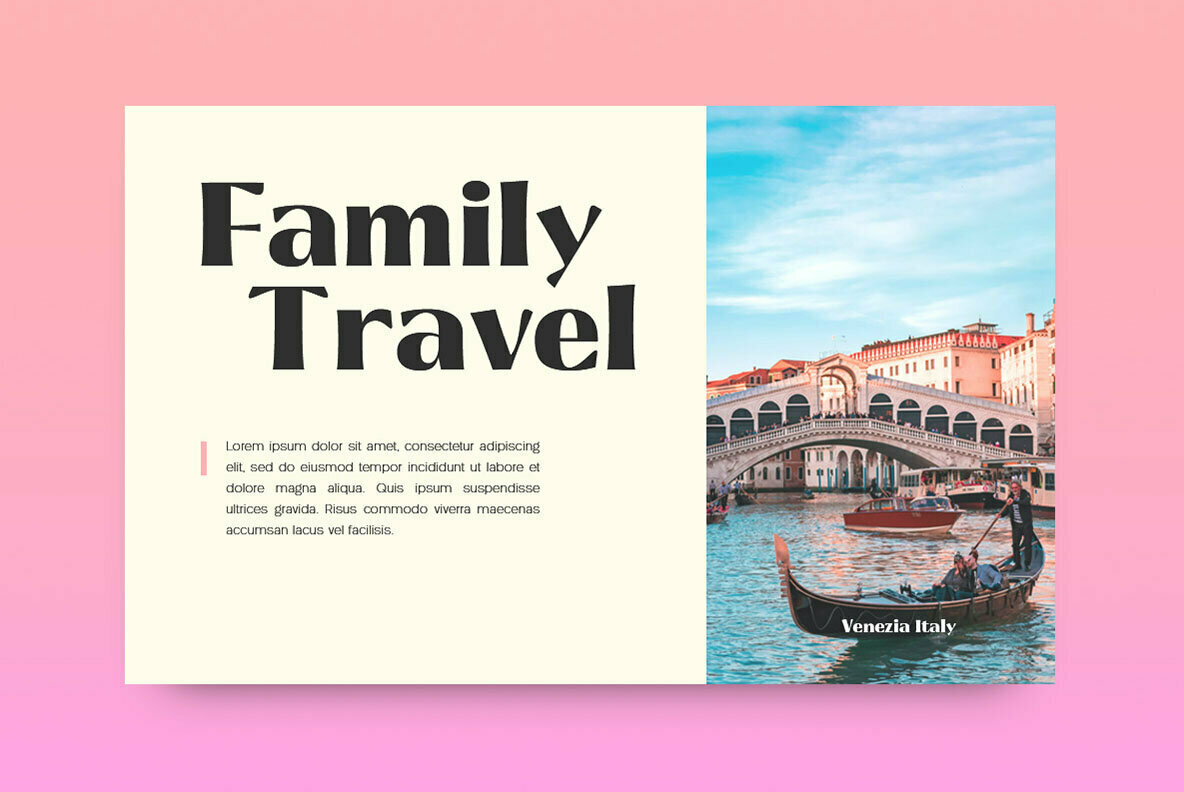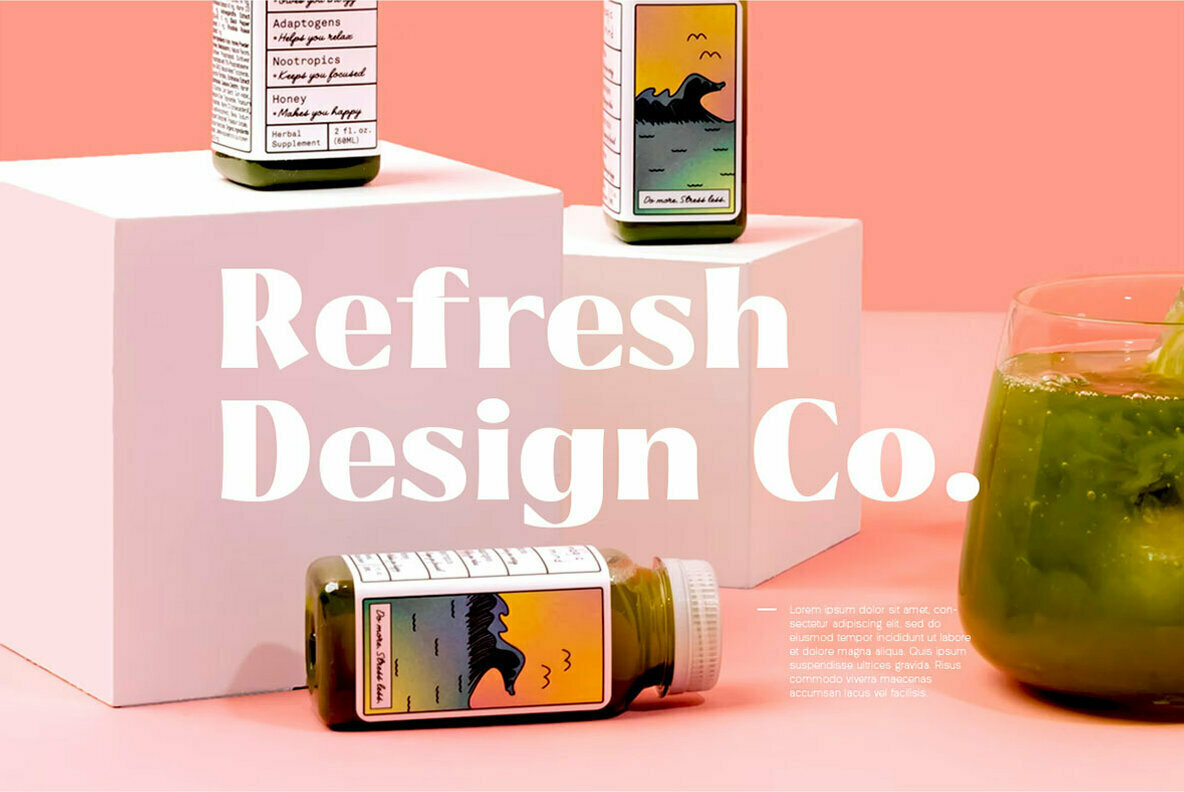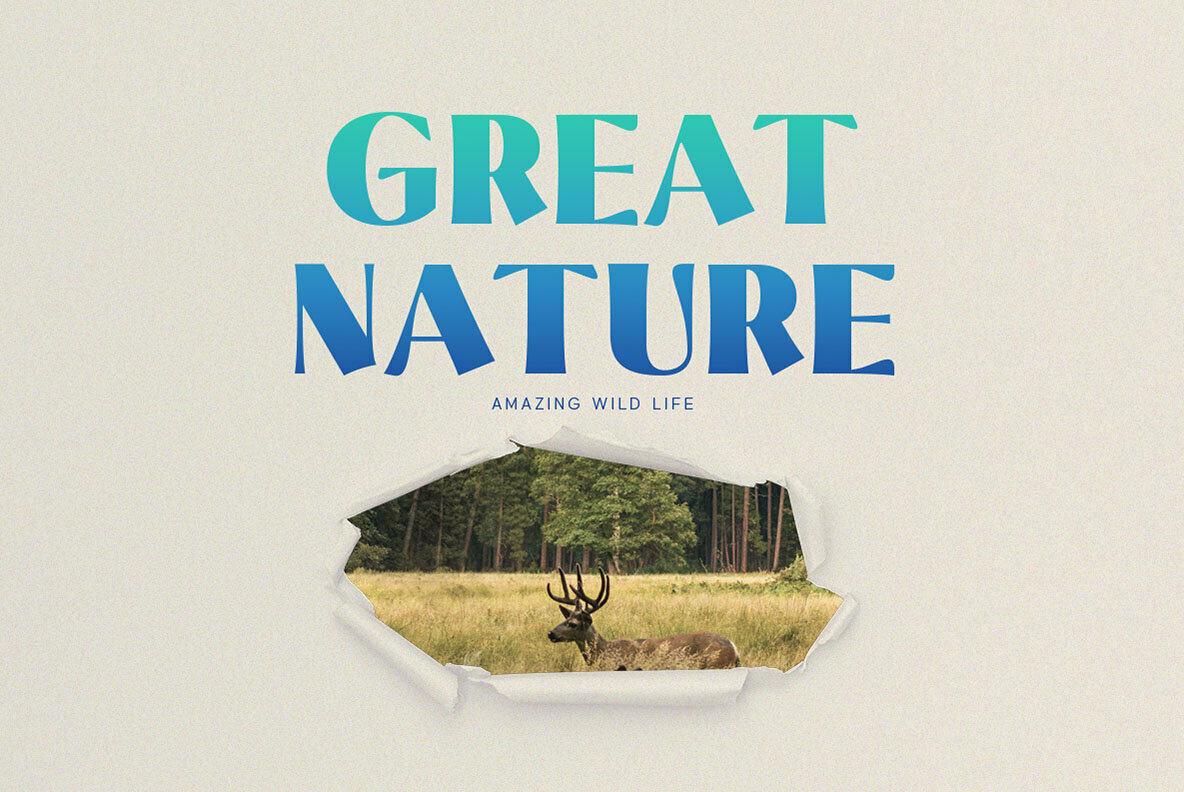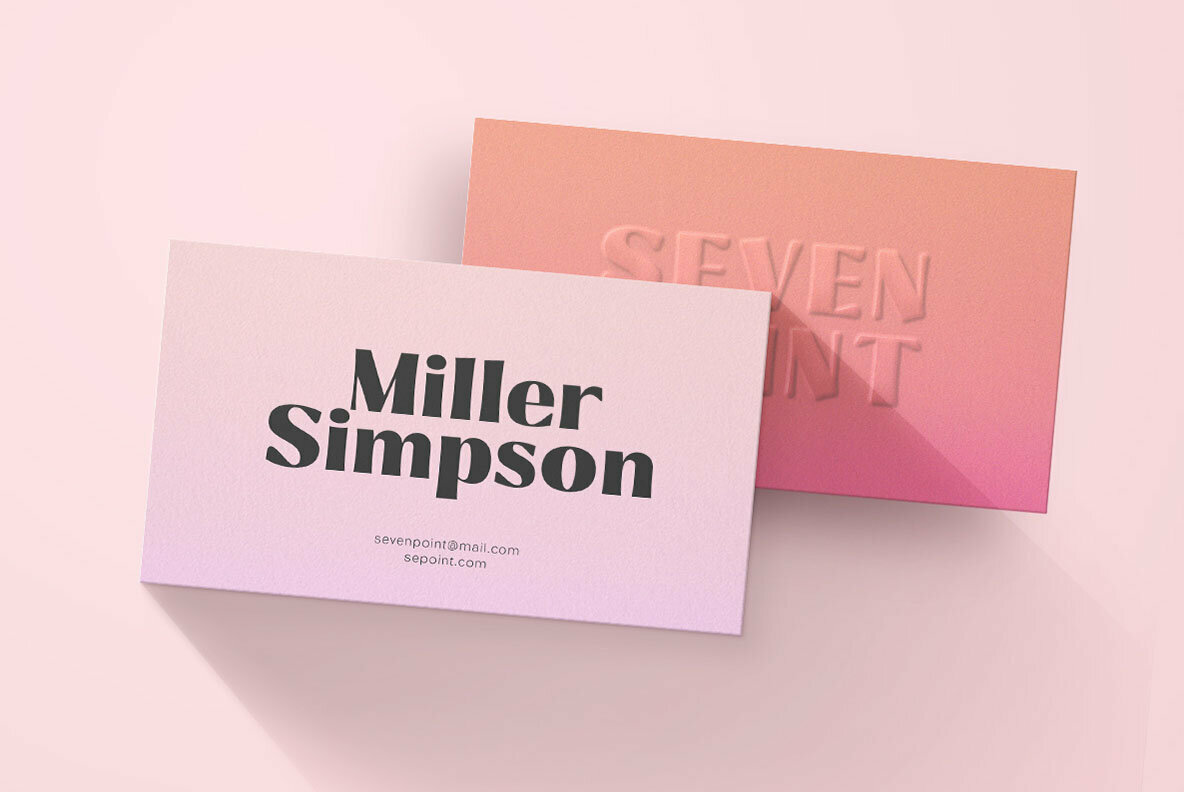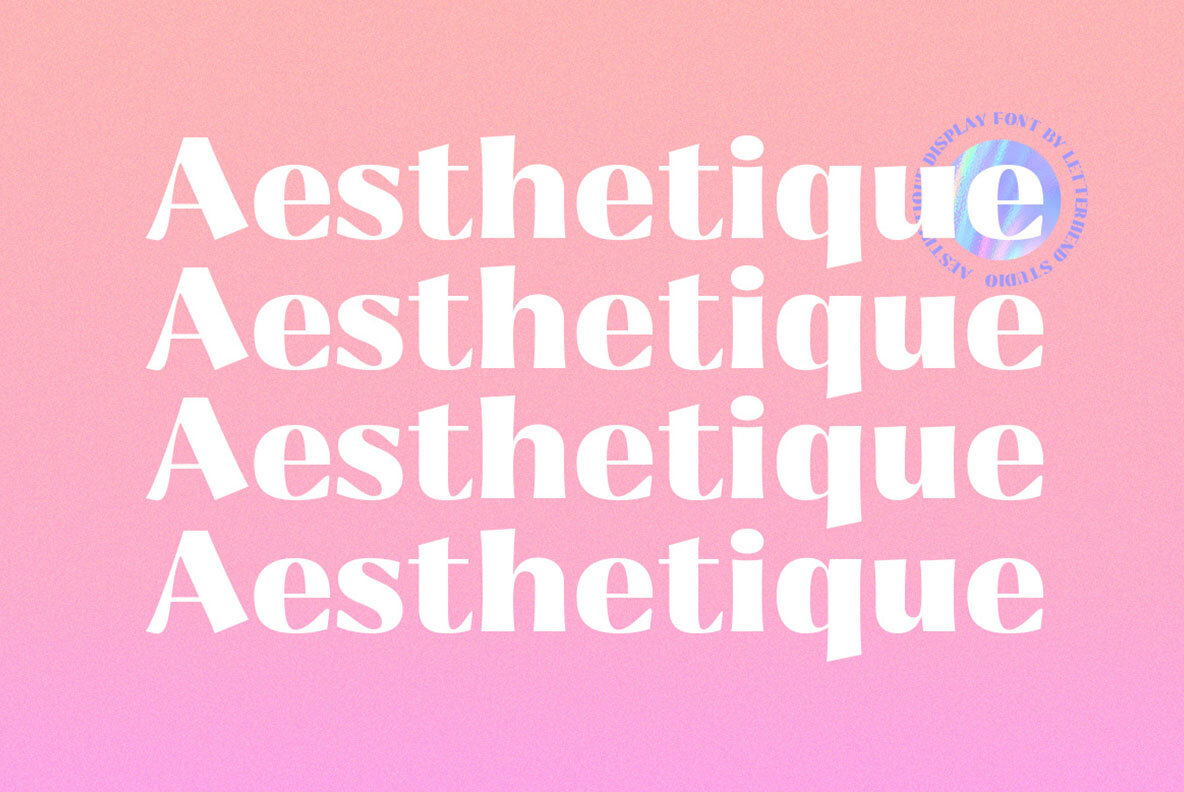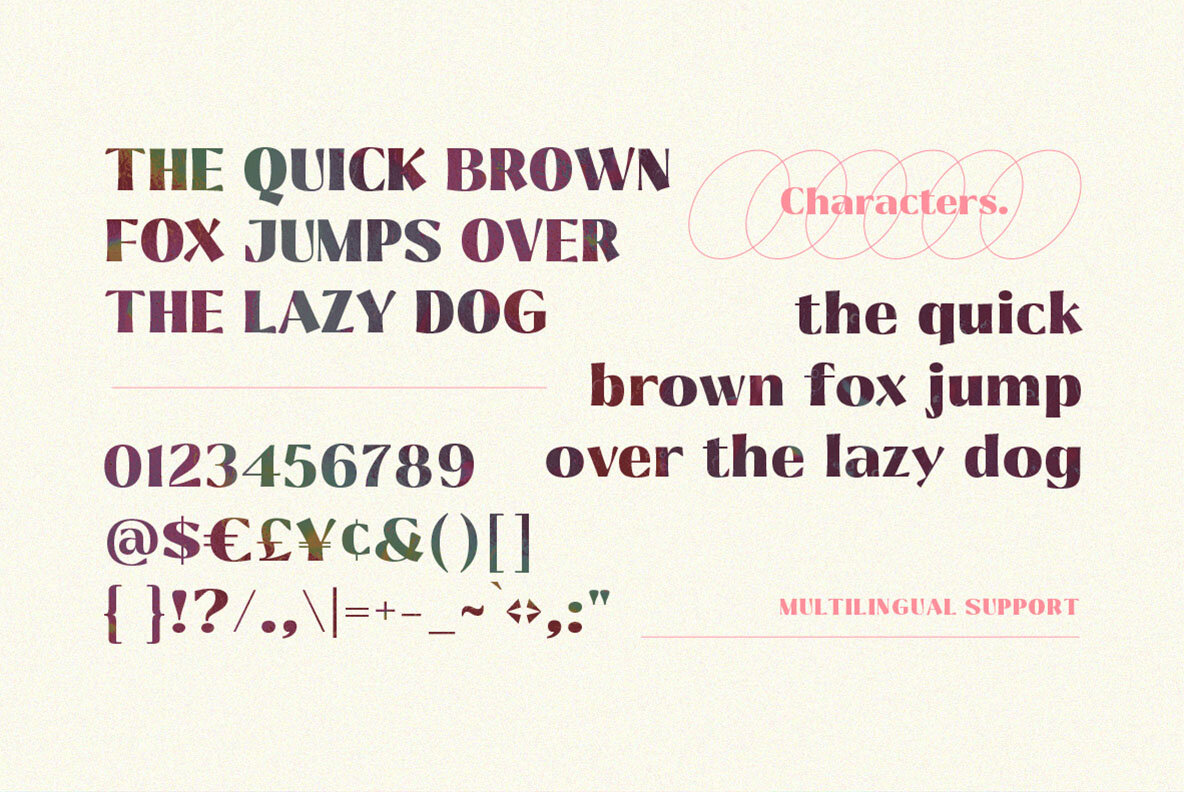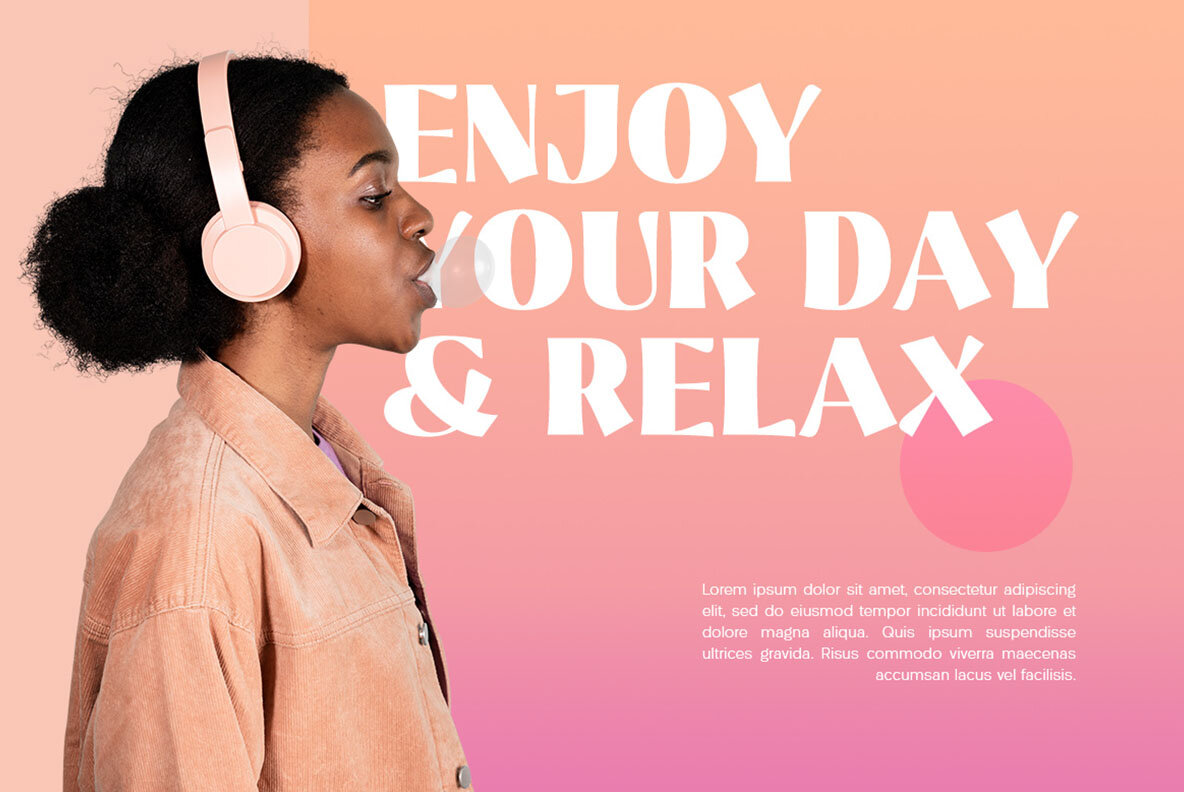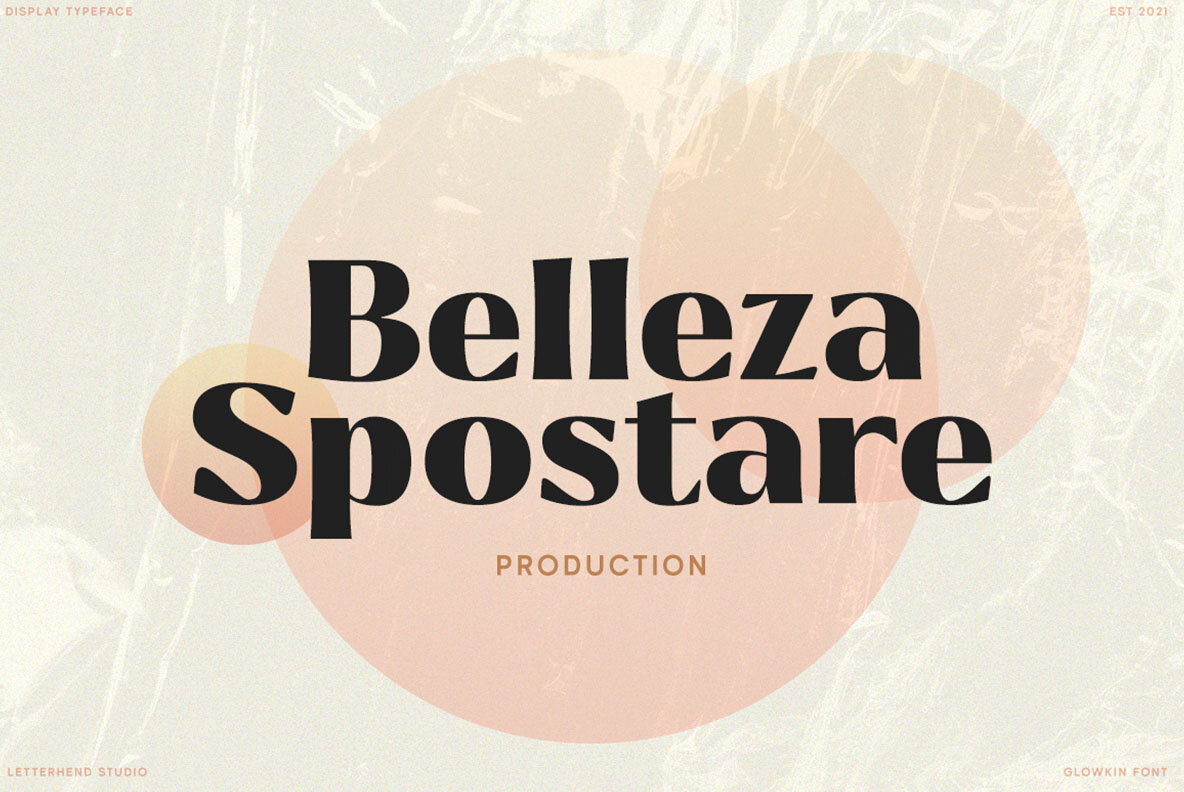
Glowkin Font
Glowkin Regular
Glowkin is a sophisticated display typeface with modern look and feel. Perfectly to be applied to the other various formal forms such as invitations, labels, logos, magazines, books, greeting / wedding cards, packaging, fashion, make up, stationery, novels, labels or any type of advertising purpose.